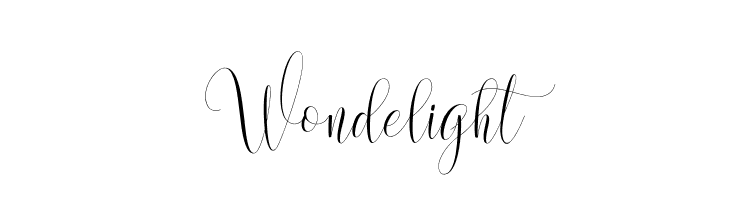
A dynamic, flowing script font with a handwritten appearance.
A dynamic and expressive handwritten font with flowing cursive letterforms.
A delicate and elegant script font with flowing, whimsical curves.
A whimsical, cursive font with flowing, elongated strokes and dynamic line variations.